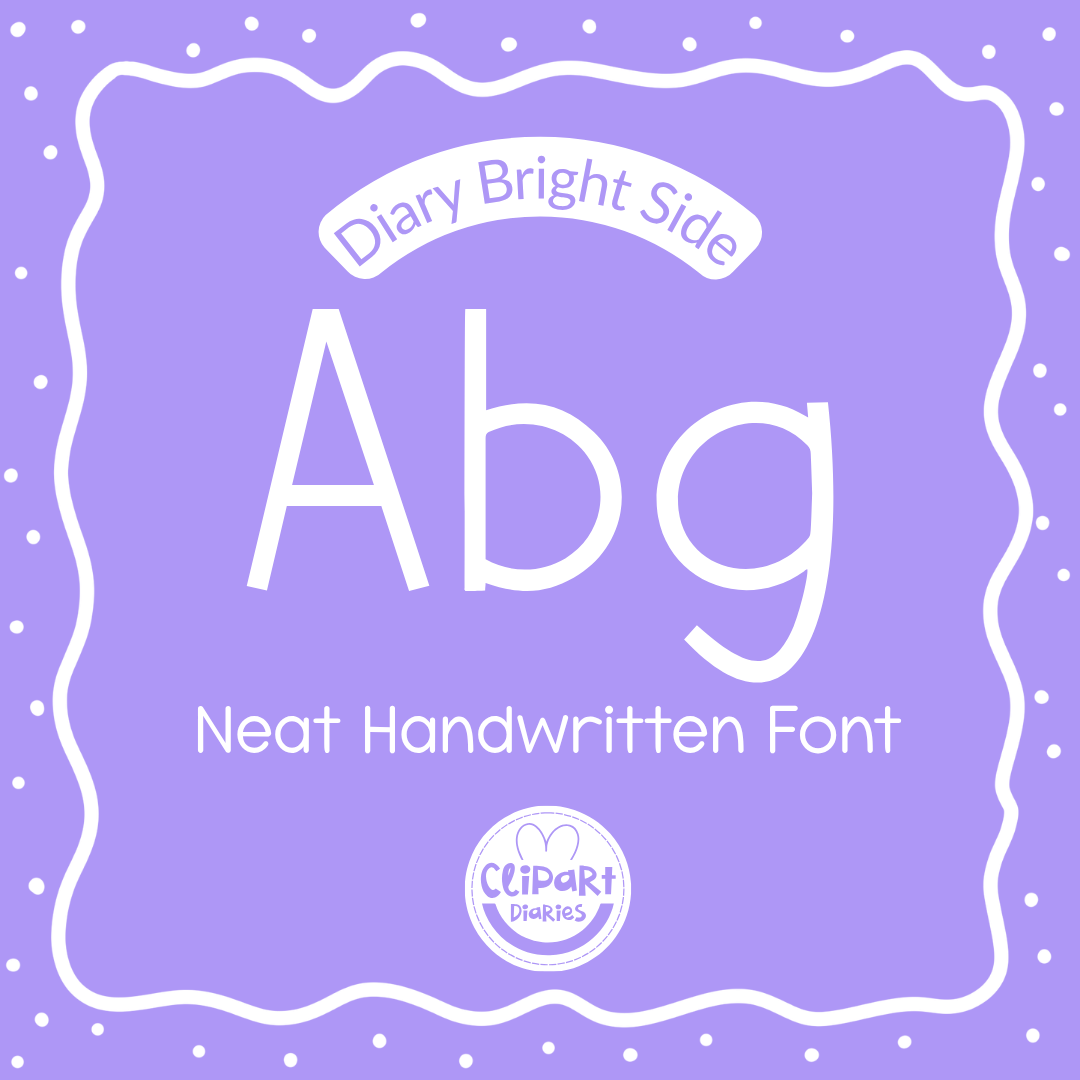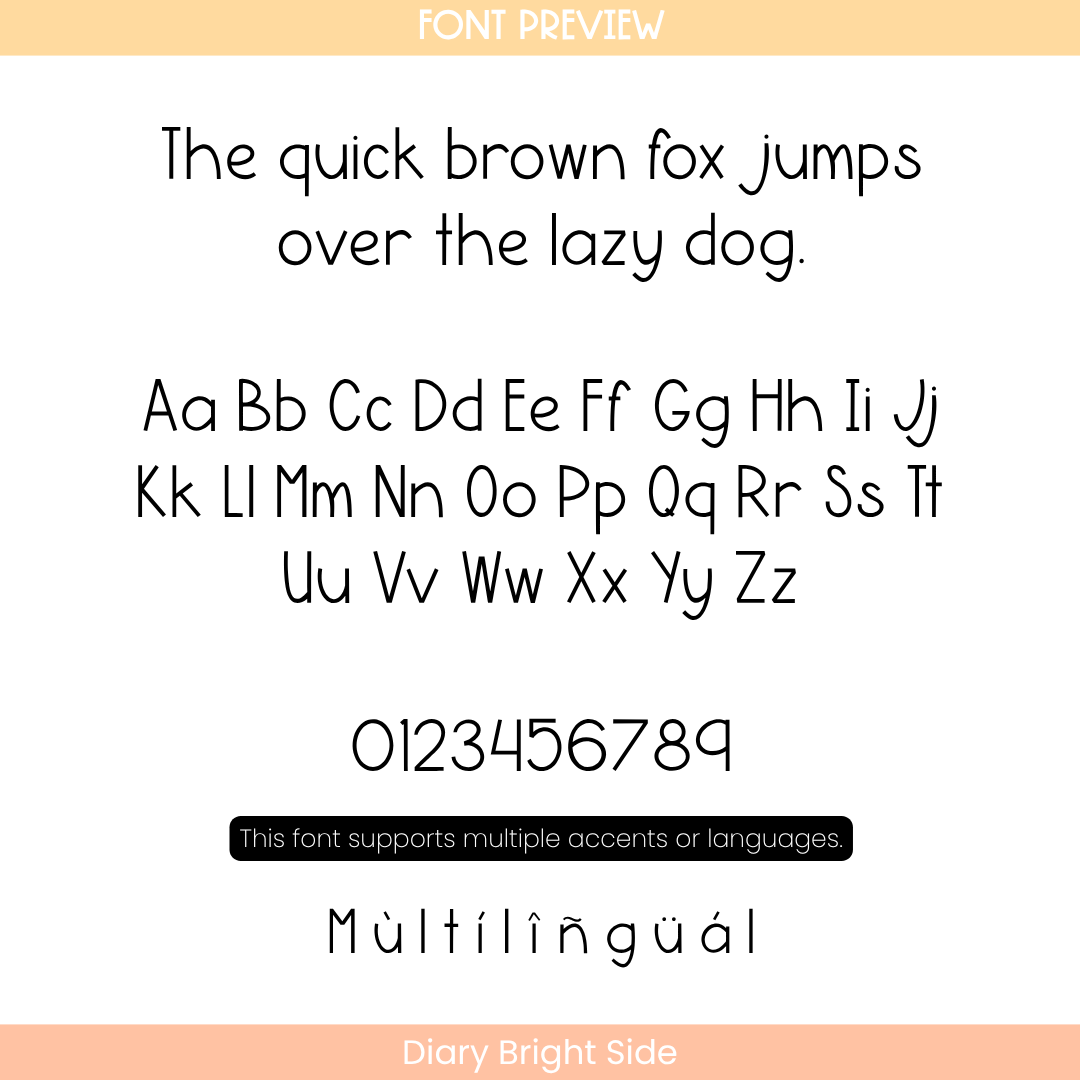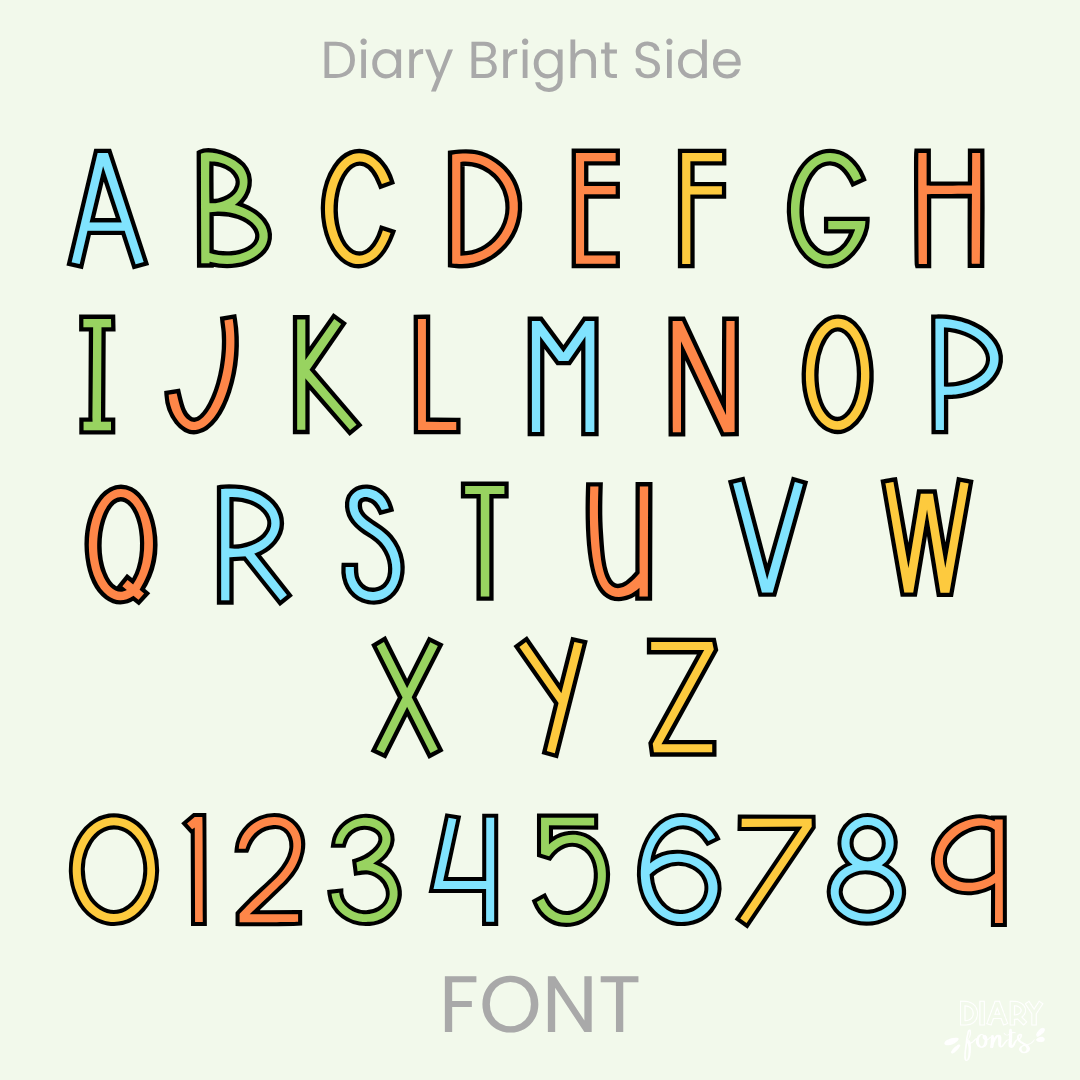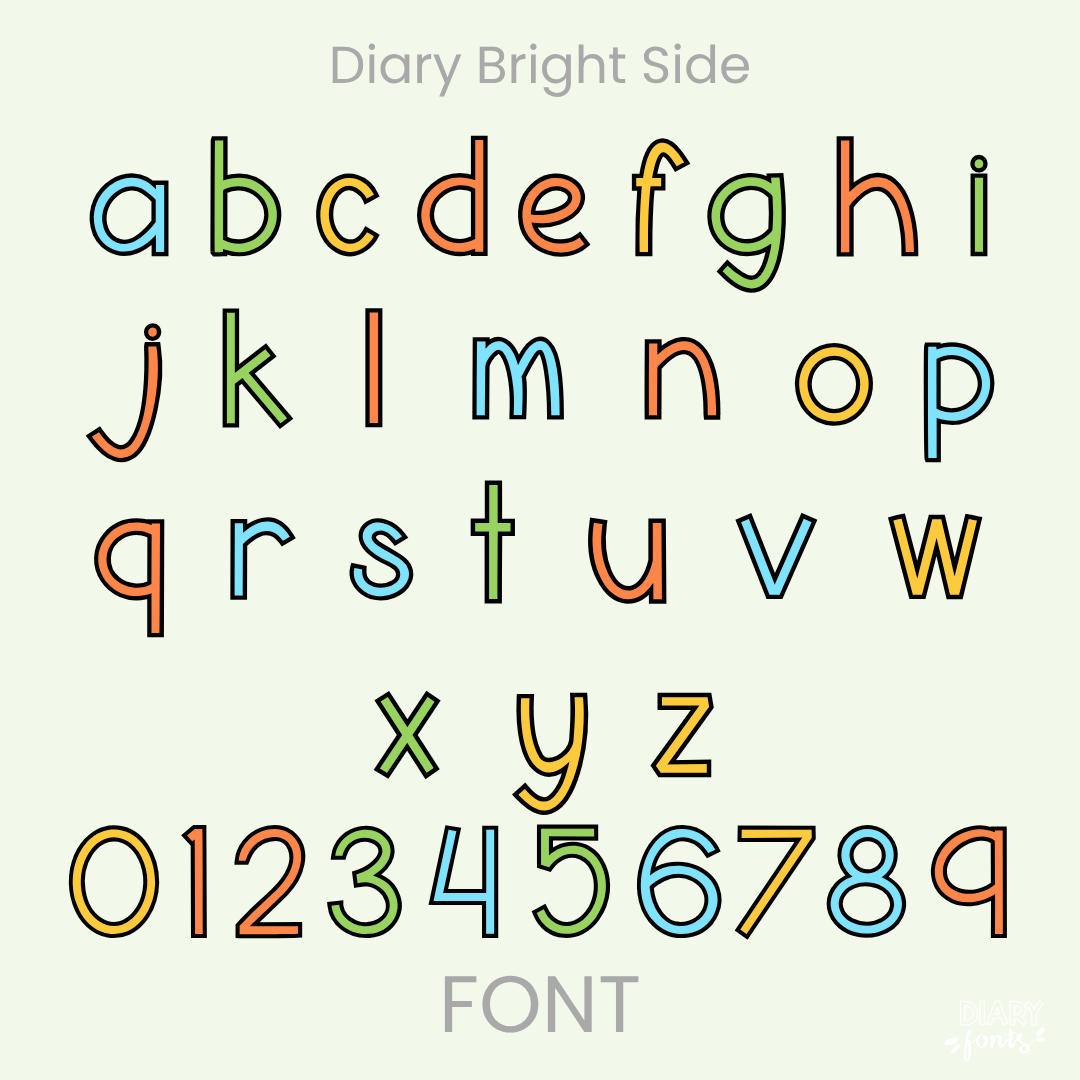
If you’re looking for a font that stays organized while still feeling personal, Diary Bright Side is a fantastic choice. It features a tidy, upright style with consistent letter heights, making it incredibly easy to read—even for younger students. It’s the kind of neat handwriting that works perfectly for daily worksheets, classroom instructions, and digital planning. The font includes a full set of uppercase and lowercase letters, numbers, and multiple accents for different languages. You can use it easily in Canva, MS Office, and Adobe Apps, and it’s fully compatible with iPad apps like GoodNotes and Procreate. It’s a versatile and reliable font for both personal and commercial projects.